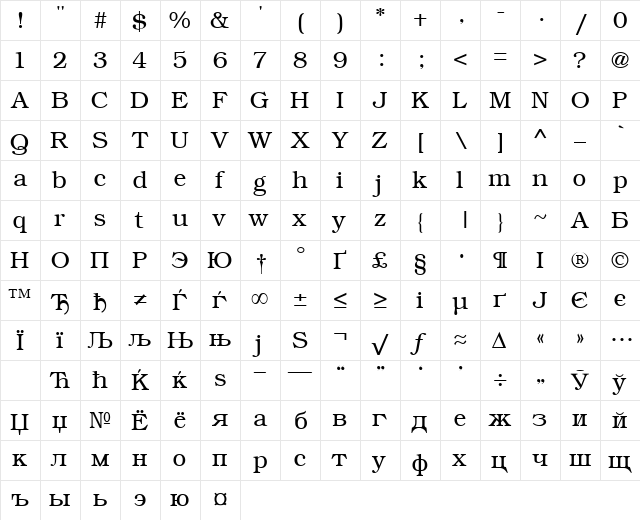
ER Bukinist Mac Normal
Design Context for ER Bukinist Mac Typeface
ER Bukinist Mac takes a measured approach to typography — its balanced proportions and neutral character make it a reliable workhorse for both digital and print work.